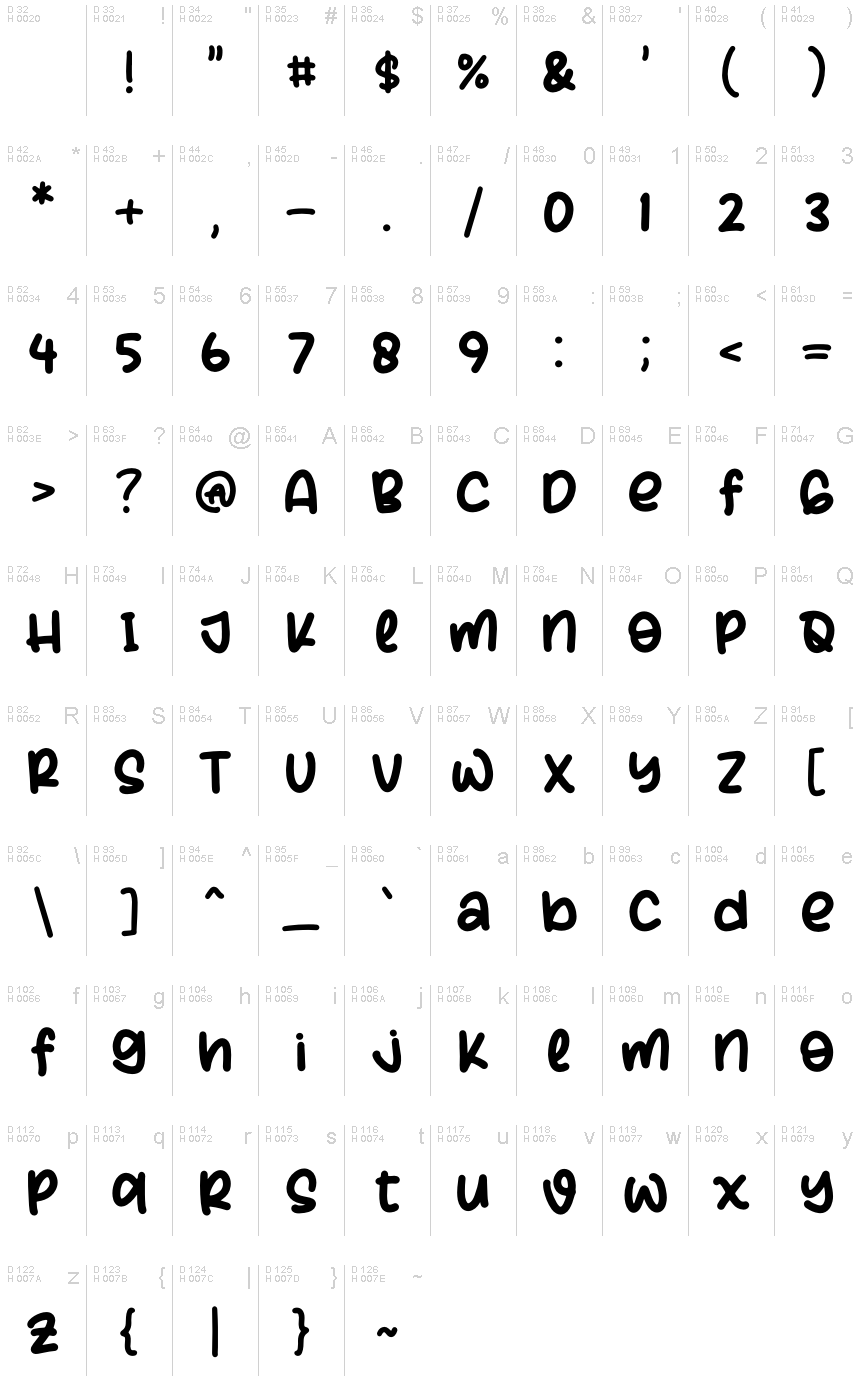
Milkshake Creps, crafted by Perspectype Studio at Letterena.com, brings a playful and whimsical energy to the realm of typography. With its cartoonish allure and script flair, this display font dances across the page with a casual grace that's both inviting and fun. It exudes an animated personality that can't help but infuse a touch of joy into any design.
The flowing letters suggest movement, making it perfect for projects that aim to capture attention with charm rather than formality. Its bold strokes give it enough presence to stand out in larger displays like posters or headlines, while its lively style makes it ideal for brands aiming to convey warmth and friendliness.
In contexts from children's book titles to quirky branding or casual event announcements, Milkshake Creps is poised to sprinkle a little mirth wherever it's applied.